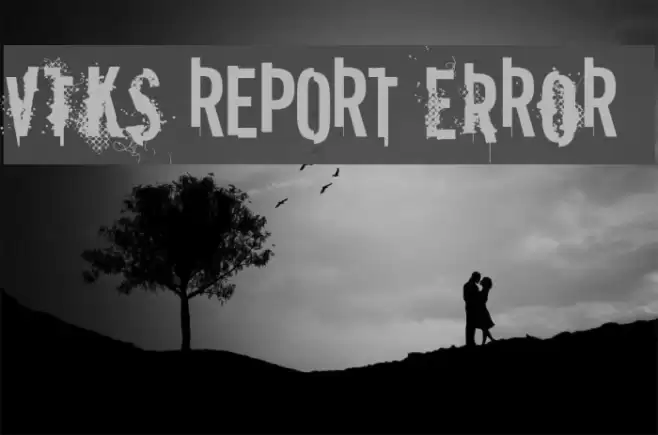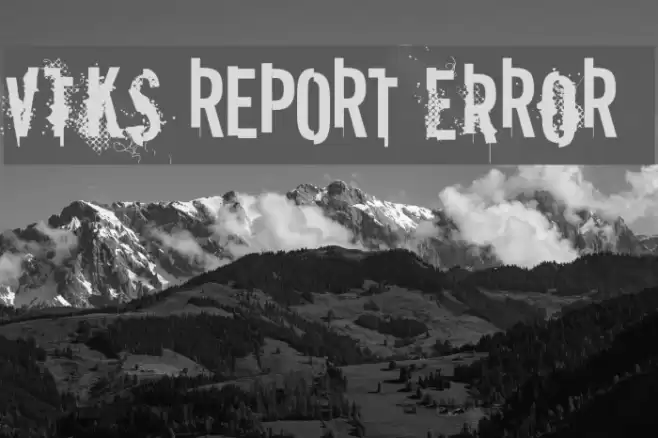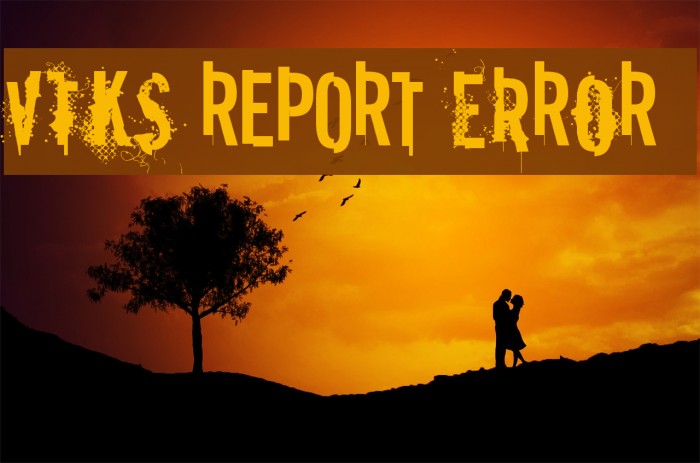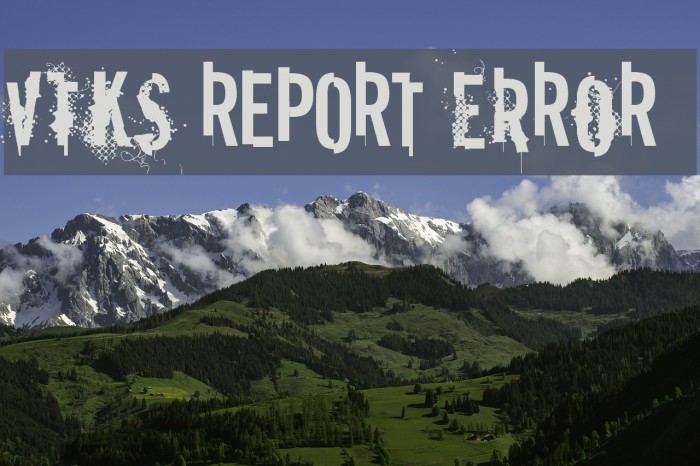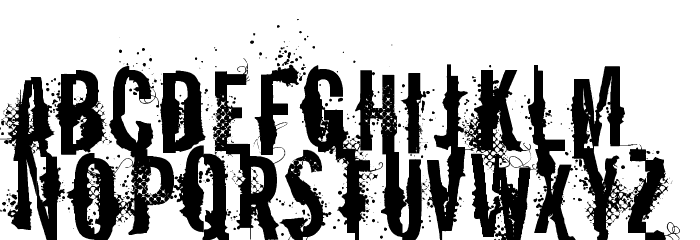
vtks REPORT erRoR Font
vtks REPORT erRoR Description
This font features a bold and impactful design with a distressed, grunge aesthetic. The uppercase letters are characterized by a strong, solid structure with irregular edges and splatter effects that give it a chaotic, urban feel. The font's unique style is achieved through the combination of thick strokes and rough textures, creating a sense of movement and energy. It is particularly eye-catching and suitable for designs that require a dramatic and edgy look. The font's distinctive appearance makes it ideal for creative projects that aim to stand out and make a bold statement.
A bold, distressed font with a grunge aesthetic and splatter effects from Distorted Eroded fonts.
- Proposed Projects: Album covers, posters, streetwear branding, event flyers, and any project needing a bold, edgy look.
- Overall Style: Grunge, Urban, Edgy